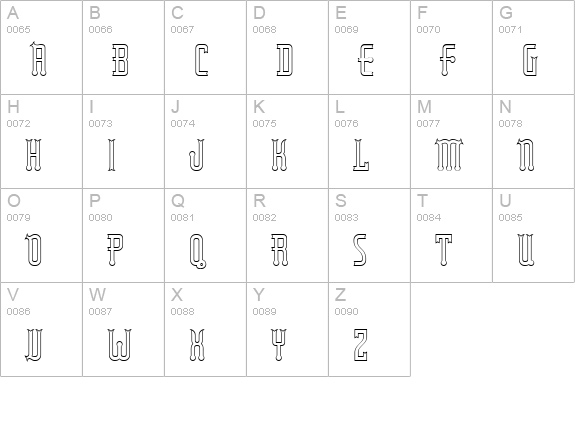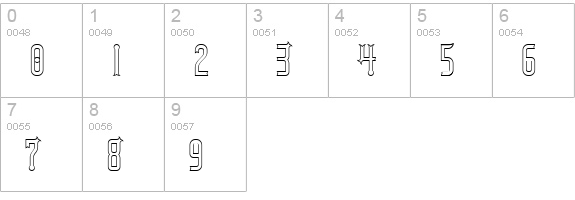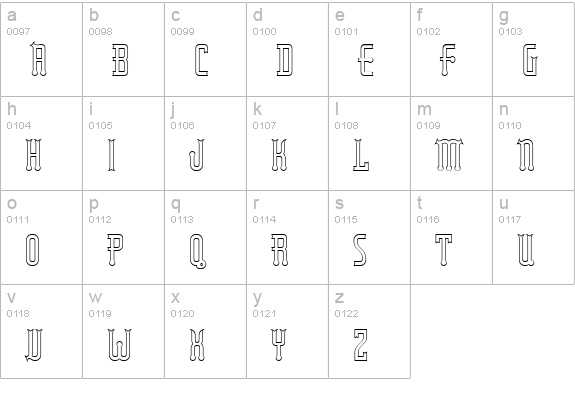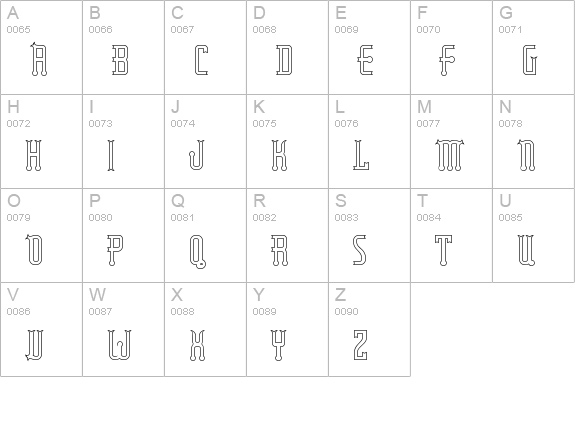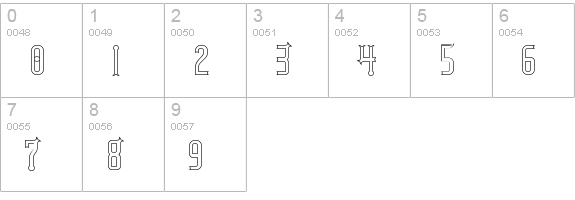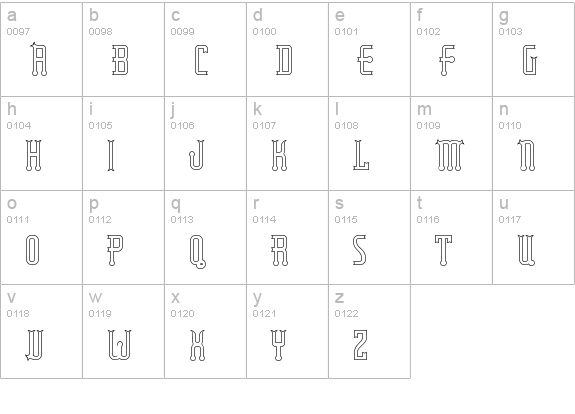
RubaiyatOutline font is a modern and stylish typeface that exudes elegance and sophistication. With its clean lines and sharp edges, this font is perfect for conveying a sense of class and luxury in your designs. The RubaiyatOutline font is versatile and can be used for a variety of design projects, from logos to invitations to posters. The best part about RubaiyatOutline font is that it is completely free to download at FontsMarket.com. This means you can elevate your designs without breaking the bank. Whether you're a professional designer or just someone looking to add a touch of style to your projects, RubaiyatOutline font is the perfect choice. Download it today and see the difference it can make in your designs.